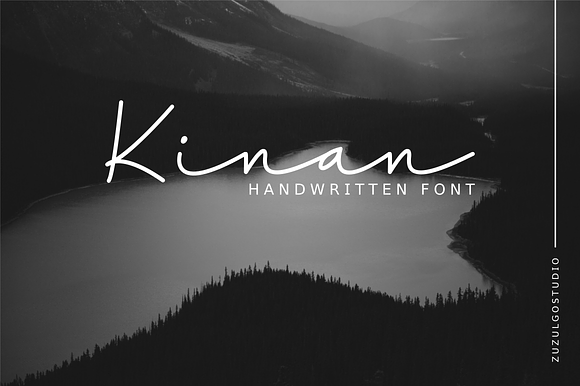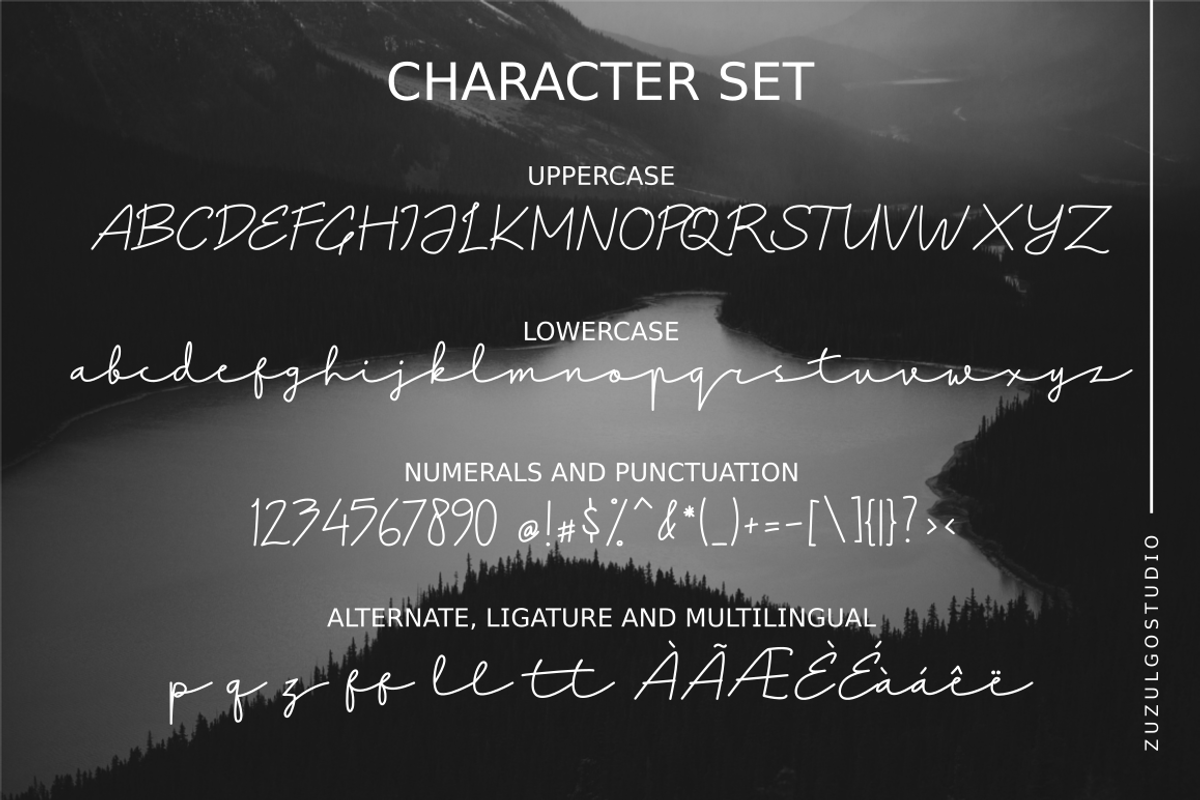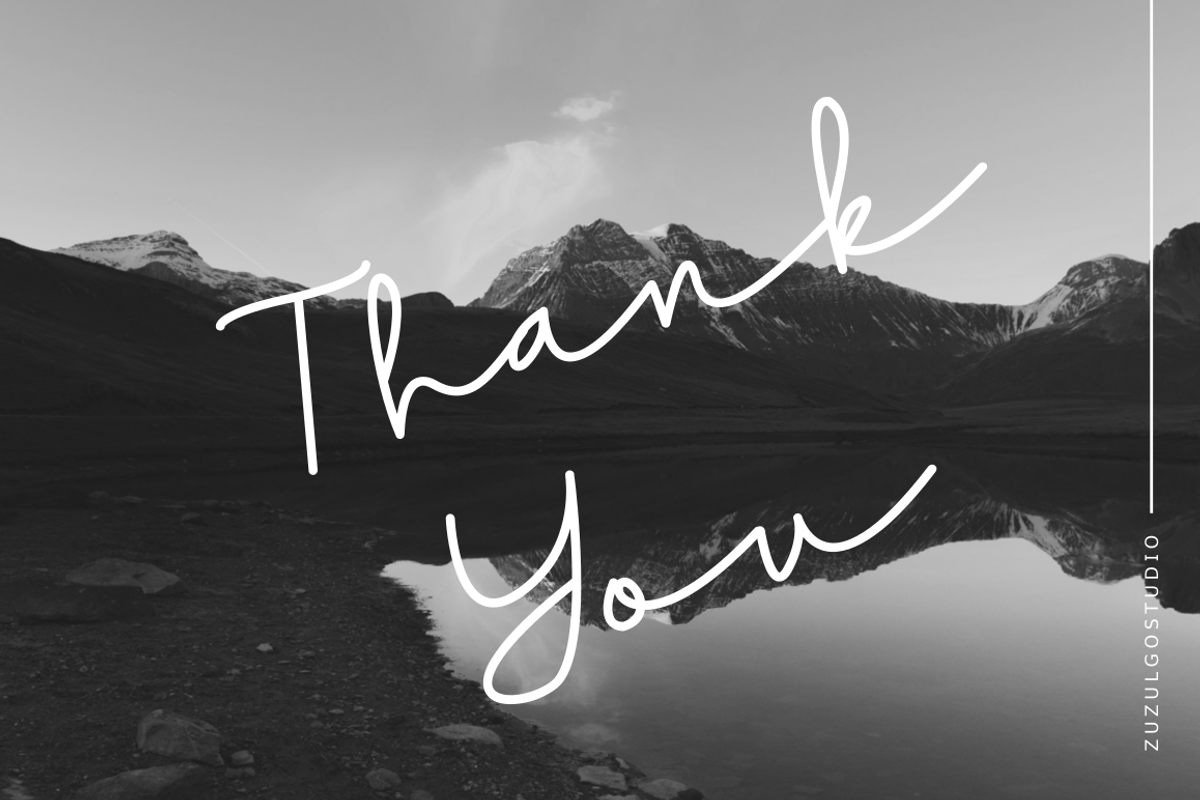
Kinan Script Font
Kinan is a fresh monoline script font, suitable for use in a wide range of project types. This font is a great way to add a touch of refinement and modernity as a headline font.
Multilingual: ÀÁÂÃÄÅÆÇÈÉÊËÌÍÎÏÐÑÒÓÔÕÖØÙÚÛÜÝàáâãäåæçèéêëìíîïñòóôõöøùúûüýÿ
Kinan Script Font by zuzulgo fits naturally into Branding, posters, packaging, typography.